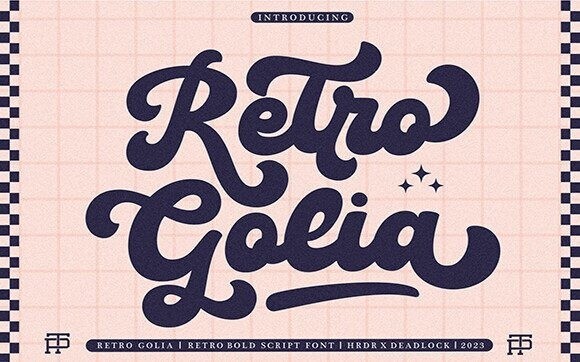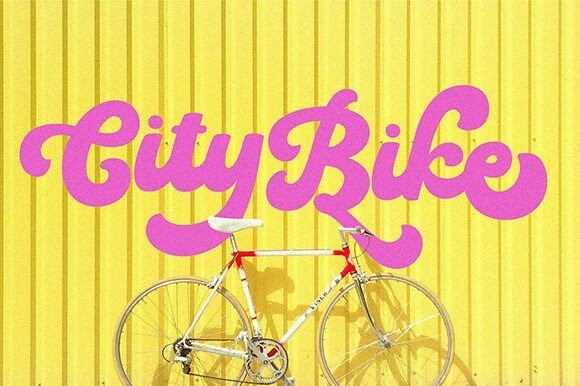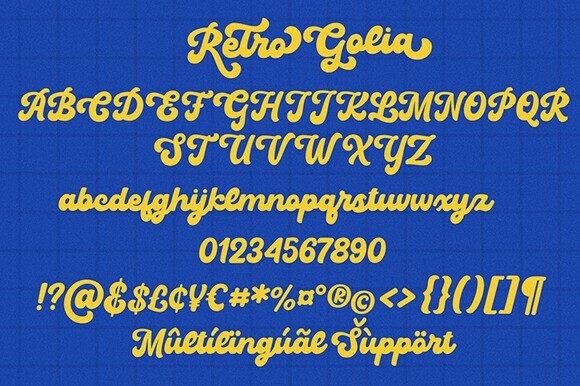
Retro Golia Font
Retro Golia Font is an enchanting handwritten font. This versatile script font has a wide spectrum of applications ranging from greeting cards to headlines and is guaranteed to add a romantic feel to your next project.